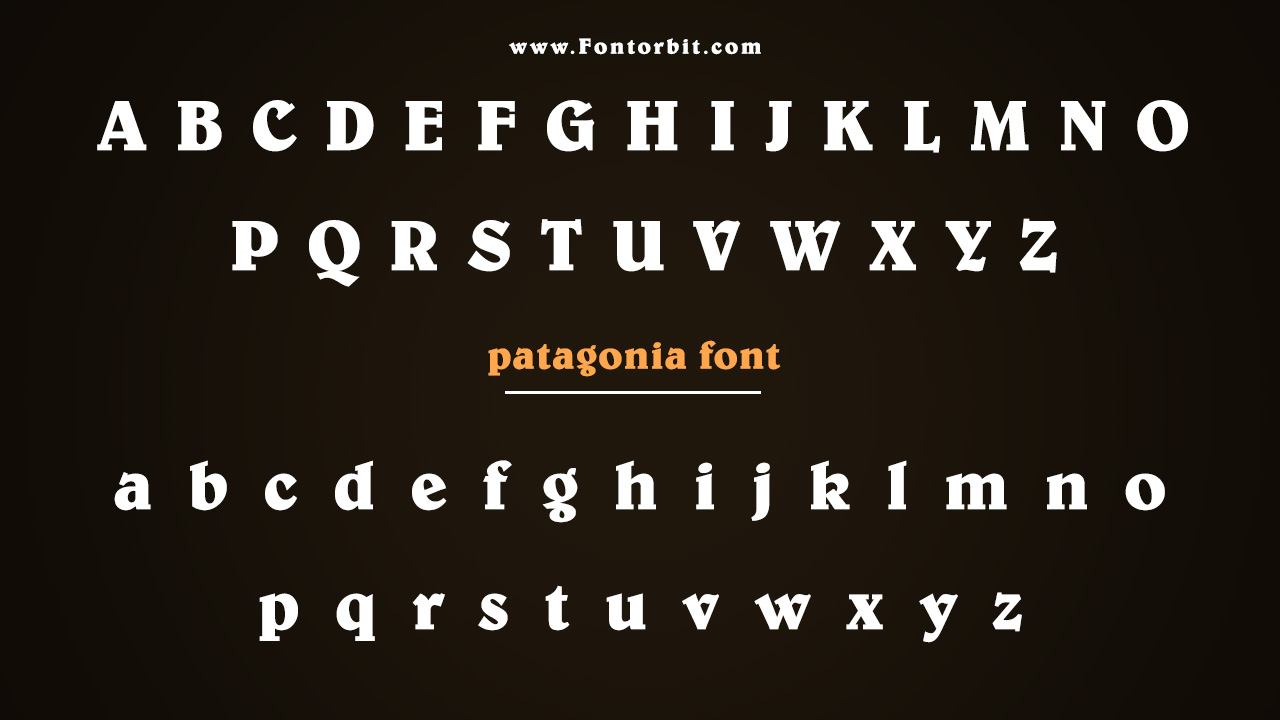
Typography plays a crucial role in brand identity, influencing recognition and customer perception. One of the most iconic fonts in outdoor branding is Belwe Bold, famously used in the Patagonia logo.
Designed by George Belwe, this serif typeface has gained immense popularity due to its bold and timeless design. It has been used in everything from book covers to company logos, making it a staple in the branding world.
Patagonia Font – A Legacy In Branding
Founded by Yvon Chouinard, Patagonia Inc. is a renowned American clothing brand, known for its commitment to sustainability and high-quality outdoor gear. Initially part of Chouinard Equipment, the company quickly expanded into a global leader in eco-conscious apparel. Beyond its products, the Patagonia brand is also recognized for its distinct typography, particularly its bold serif font.
Why Belwe Bold Font For The Patagonia Logo?
- Bold and readable – Ideal for outdoor and adventure branding.
- Timeless serif style – Combines tradition with modern appeal.
- Versatile usage – Works well in logo design, marketing, and apparel branding.
- Strong brand association – Creates an immediate connection with Patagonia’s identity.
Patagonia Font Family Breakdown
The Patagonia font family includes several variations of Belwe Bold, making it adaptable for different branding needs:
- Belwe Light – A softer, more subtle style.
- Belwe Medium – Balanced for headings and body text.
- Belwe Bold – The primary choice for the Patagonia logo.
- Belwe Condensed – A compact version for tight spaces.
If you are looking for alternatives, here are some similar fonts that resemble Belwe Bold:
- Grobold Font – A bold, playful serif.
- Karla Font – A clean and modern sans-serif.
- Tom Frost Font – Vintage-inspired with a classic feel.
- Belwa Bold Font – A heavier variation of Belwe.
Typography In Branding: Why It Matters
Typography is a key component of branding, influencing how a brand is perceived. Serif fonts, like Belwe Bold, evoke tradition and reliability, while sans-serif fonts are often used for a modern look. Many brands use bold typography to create strong logo fonts that stand out.
Common Uses Of Belwe Typeface
The Belwe typeface is not exclusive to Patagonia; it has been widely used in:
- Book covers – Classic and adventure-themed literature.
- Company logos – Outdoor and lifestyle brands.
- Advertising and branding – Both print and digital ads.
- Merchandise and apparel – Found on clothing labels and promotional items.
Font Usage Comparison
| Feature | Belwe Bold | Grobold Font | Karla Font | Belwa Bold |
|---|---|---|---|---|
| Font Style | Serif | Sans-Serif | Serif |
| Best for | Logos, Branding | Playful Branding | Modern Websites | Bold Headlines |
| Used in | Patagonia, Books | Casual Branding | Tech, Branding | Editorial & Print |
| Readability | High | Medium | High | Medium |
The Patagonia font has left a lasting impact on the world of design and branding. Its bold font structure enhances brand visibility, while its serif font style conveys heritage and reliability. As typography trends evolve, the Belwe Bold font and its related fonts continue to shape modern logo design and corporate branding.
1.What Font Is Used In The Patagonia Logo?
The Patagonia logo uses Belwe Bold, a serif font known for its strong and classic design.
2.Can I Download The Patagonia Font For Free?
The Belwe Bold font is a commercial typeface and requires a paid license. However, there are similar fonts available for personal use.
3.What Are Some Free Alternatives To Belwe Bold?
Some related fonts include Grobold Font, Karla Font, and Belwa Bold Font, which provide a similar bold serif look.
4.Why Is Typography Important In Branding?
Typography helps brands establish a distinct visual identity, ensuring memorability and professionalism. Fonts like Belwe Bold reinforce a brand’s credibility and uniqueness.